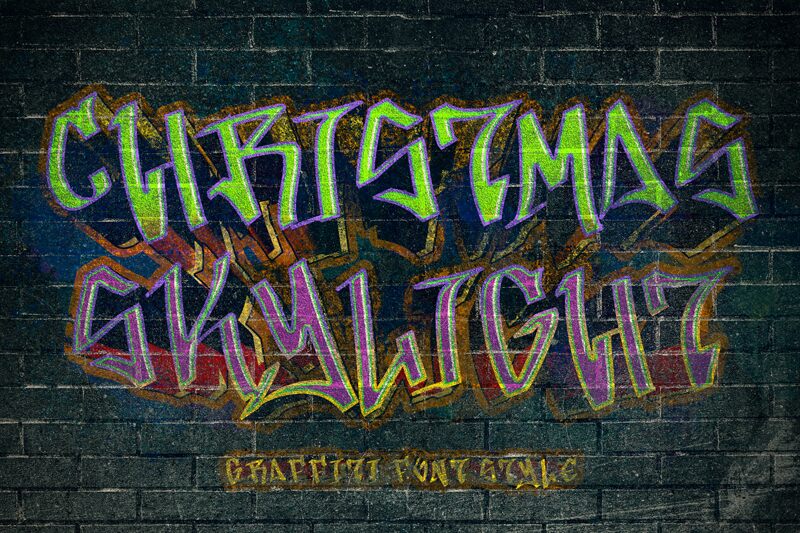
Christmas Skylight font is an expressive free graffiti-inspired hand-lettered typeface by Yoga Letter. The alphabet looks and feels urban, youthful, dynamic, and vibrant, allowing it to reflect the rebellious nature of street culture. At the same time, the letters are neatly drawn to keep the texts balanced no matter the length.
All the necessary characters are included in the letter set of this hand-lettered graffiti font. Make the most out of it in youthful posters, video game interfaces, album cover artworks, social media posts, online videos, graffiti logotypes, or movie posters. Professional use in product packaging and branding is also possible.